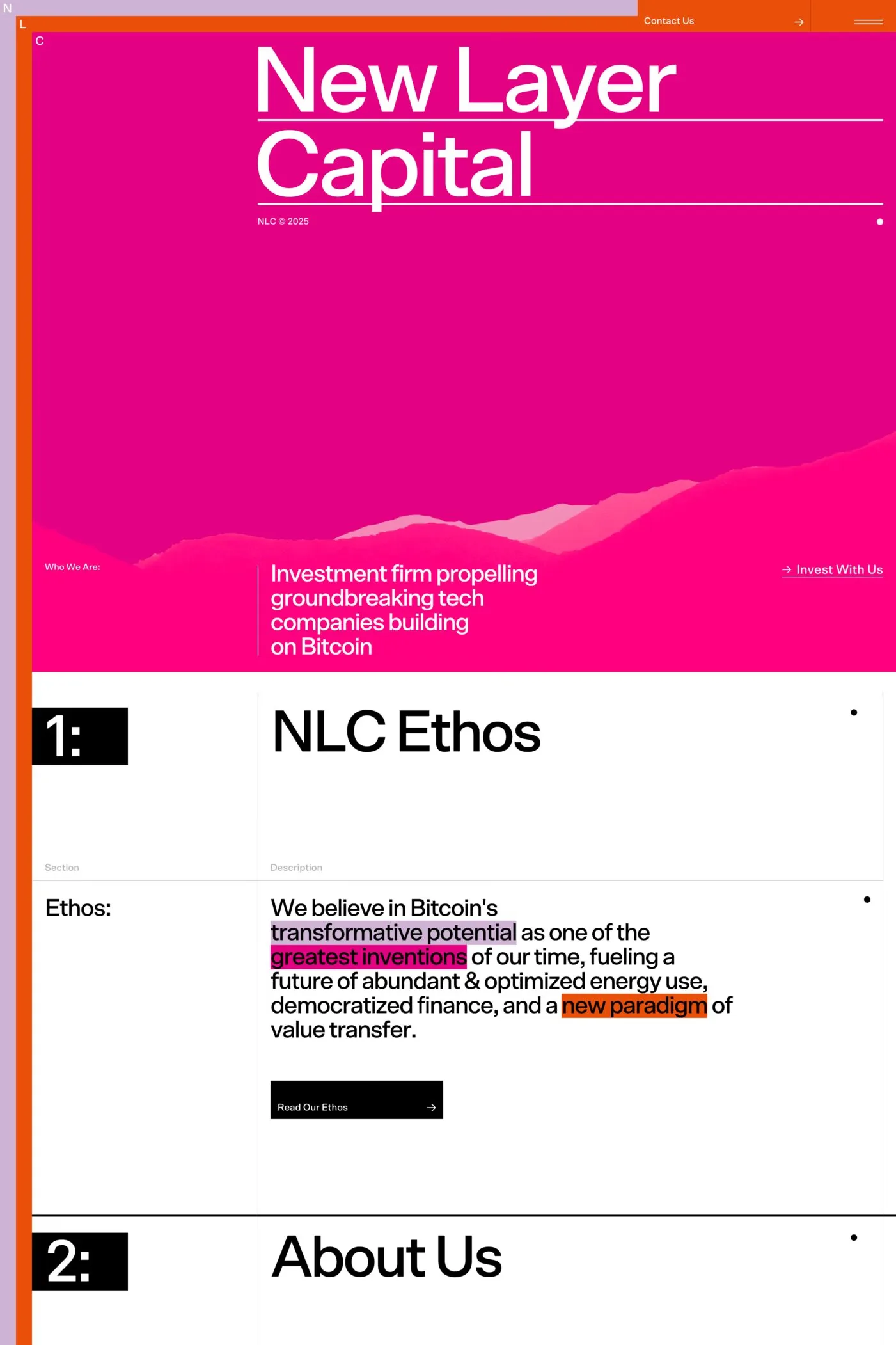
Scto Grotesk A is a sans-serif typeface from Schick Toikka.
Scto Grotesk is Schick Toikka’s very own take on this genre. Striving for the ultimate grotesque, the type designers brought together all the qualities that they like best, always opting for the least quirky, most rational option.